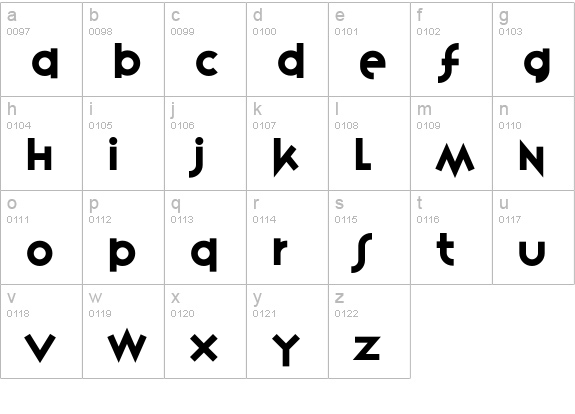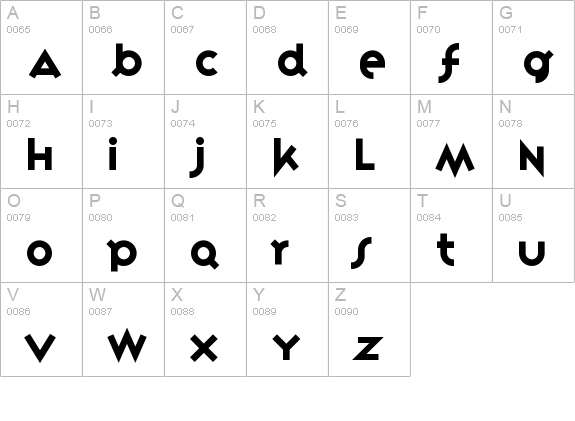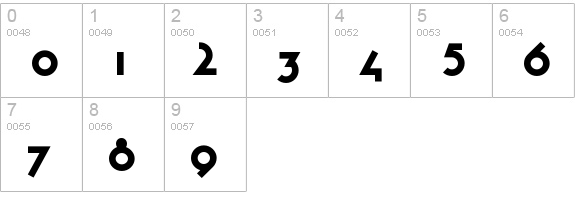
Variex font is a stunningly versatile typeface that effortlessly blends elegance with modernity. Its fluid and graceful letterforms make it an ideal choice for a wide range of design projects, from branding to editorial design and everything in between. It exudes a sense of sophistication and refinement, making it perfect for conveying a sense of luxury and style. With its wide range of weights and styles, Variex font offers endless possibilities for creative expression. Whether you're looking for a bold and attention-grabbing headline or a subtle and understated body text, this font has got you covered. Its clean lines and well-balanced proportions ensure legibility at any size, making it equally suitable for both print and digital applications. One of the most appealing aspects of Variex font is that it is freely available to download at FontsMarket.com. This means that you can easily access this stunning font without any cost, making it an excellent option for designers on a budget or those who simply appreciate the value of high-quality, free resources. So, why wait? Download Variex font today and elevate your designs to new heights of elegance and sophistication. Whether you're working on a personal project or a professional endeavor, this font will undoubtedly enhance your visual communication and leave a lasting impression on your audience. Don't miss out on this incredible opportunity to add a touch of class to your typographic arsenal.